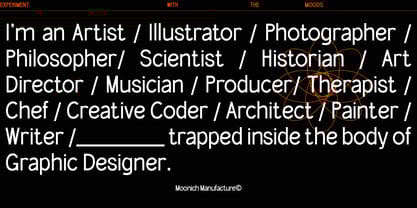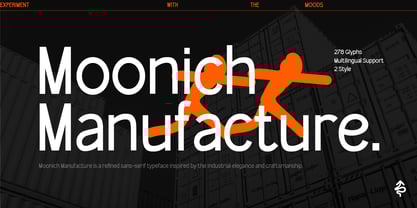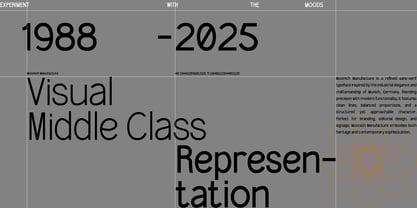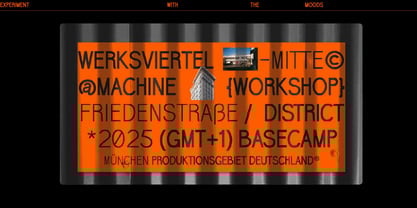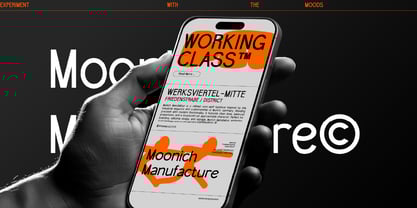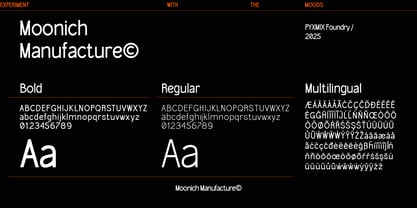
Moonich Manufacture
The Moonich Manufacture Font Family was designed by Ikhsal Salman and published by Pyxmix. Moonich Manufacture contains 2 styles and family package options.
Moonich Manufacture is a refined sans-serif typeface inspired by the industrial elegance and craftsmanship of Munich, Germany. Blending precision with modern functionality, it features clean lines, balanced proportions, and a structured yet approachable character. Perfect for branding, editorial design, and signage, Moonich Manufacture embodies both heritage and contemporary sophistication.